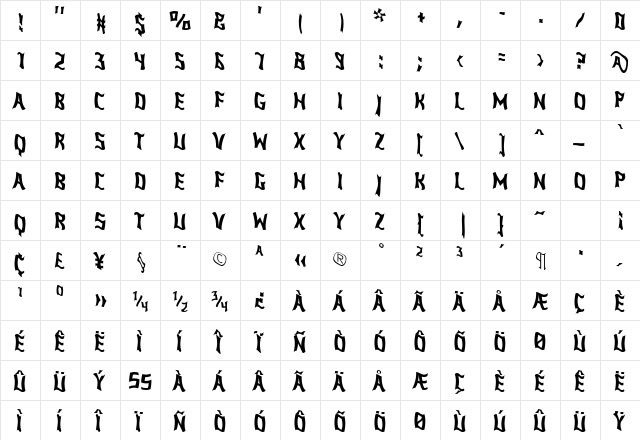
ConcavexStepper Regular
Design Context for ConcavexStepper Typeface
ConcavexStepper is a composed and adaptable typeface that performs quietly and consistently across a wide range of design contexts.